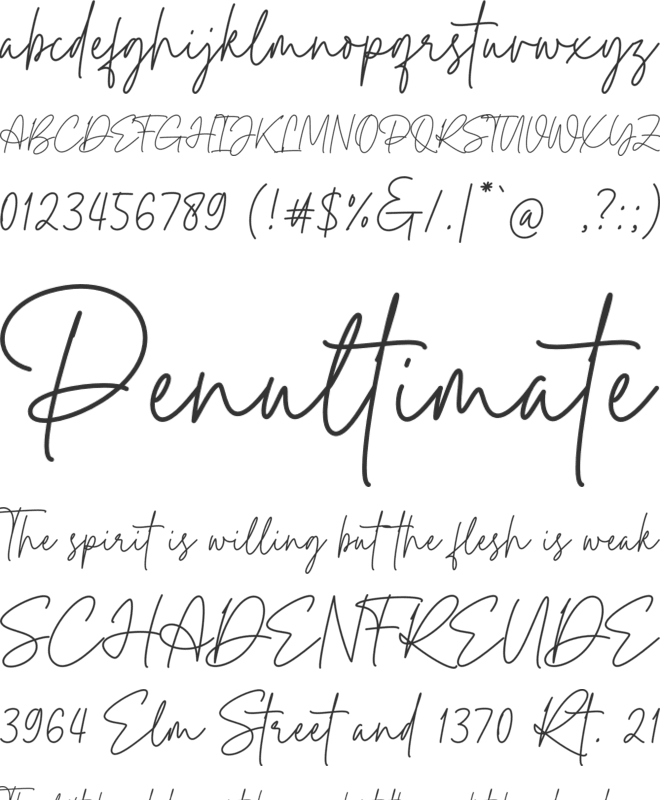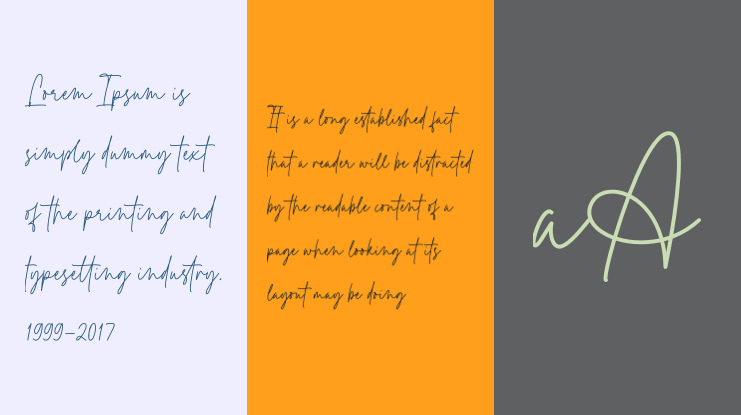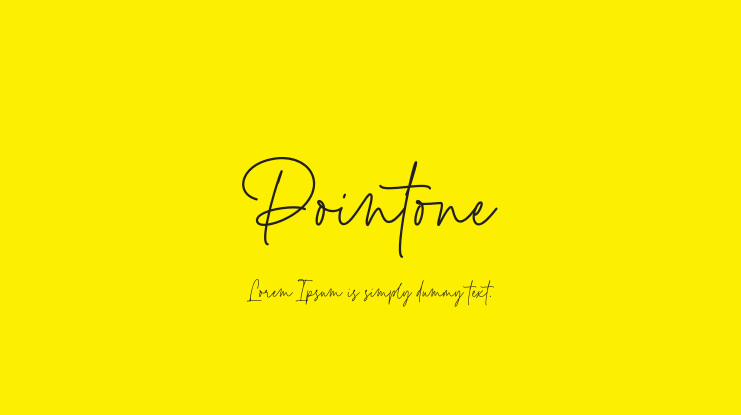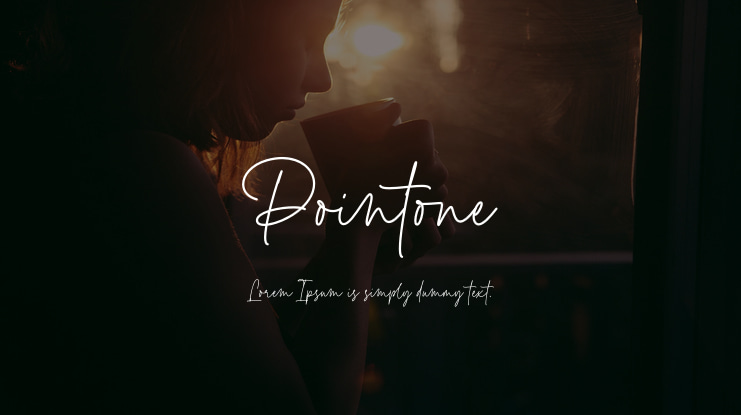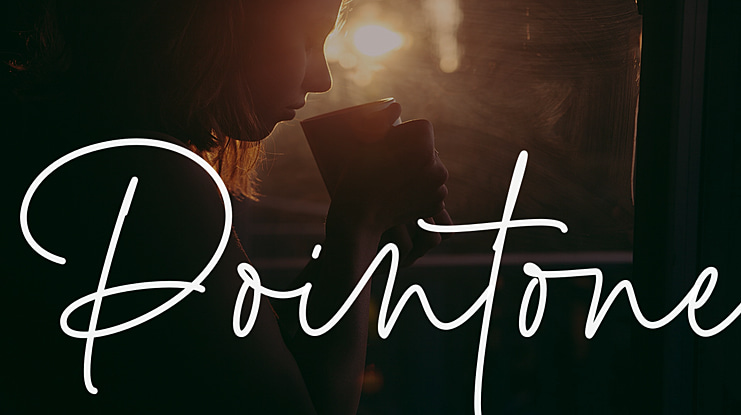
Pointone Font
This font is a monoline script typeface crafted & designed by lemonthe. Pointone has modern, sleek lines and an effortless handwriting aesthetic. It has a clean, thin and smooth vibe and it will be a hit for any design that you want to add it to. Is perfect for many different project such as logos & branding, invitation, stationery, wedding designs, social media posts, product designs, label, photography, and more!